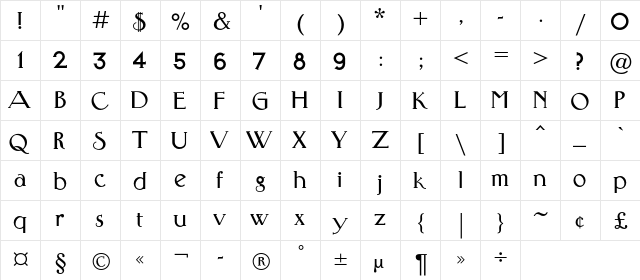
FaRerC Regular Font Preview
FaRerC Regular
FaRerC Regular Font Details
Design Context for FaRerC Typeface
FaRerC offers clean, dependable letterforms without strong stylistic allegiance, making it a practical choice for designers who need flexibility.